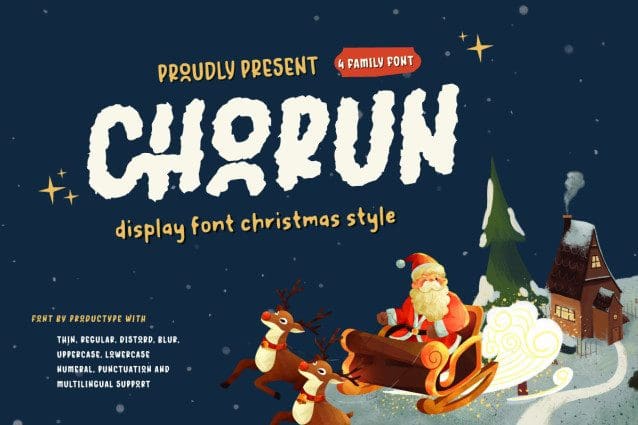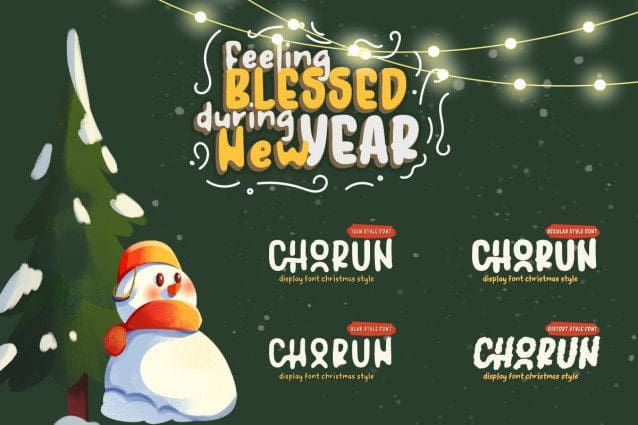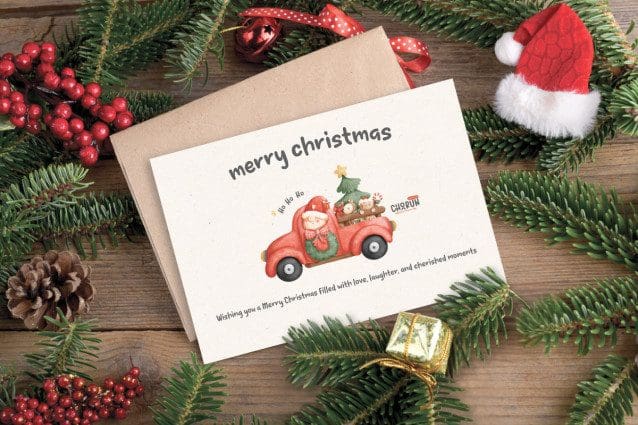
Chorun Christmas Font
Chorun Christmas Font, the joyful Christmas display font that embodies the warmth and sparkle of the holiday season. With its charming, handcrafted style, Chorun is perfect for bringing a cozy, festive touch to your designs and making every project feel like a winter wonderland.